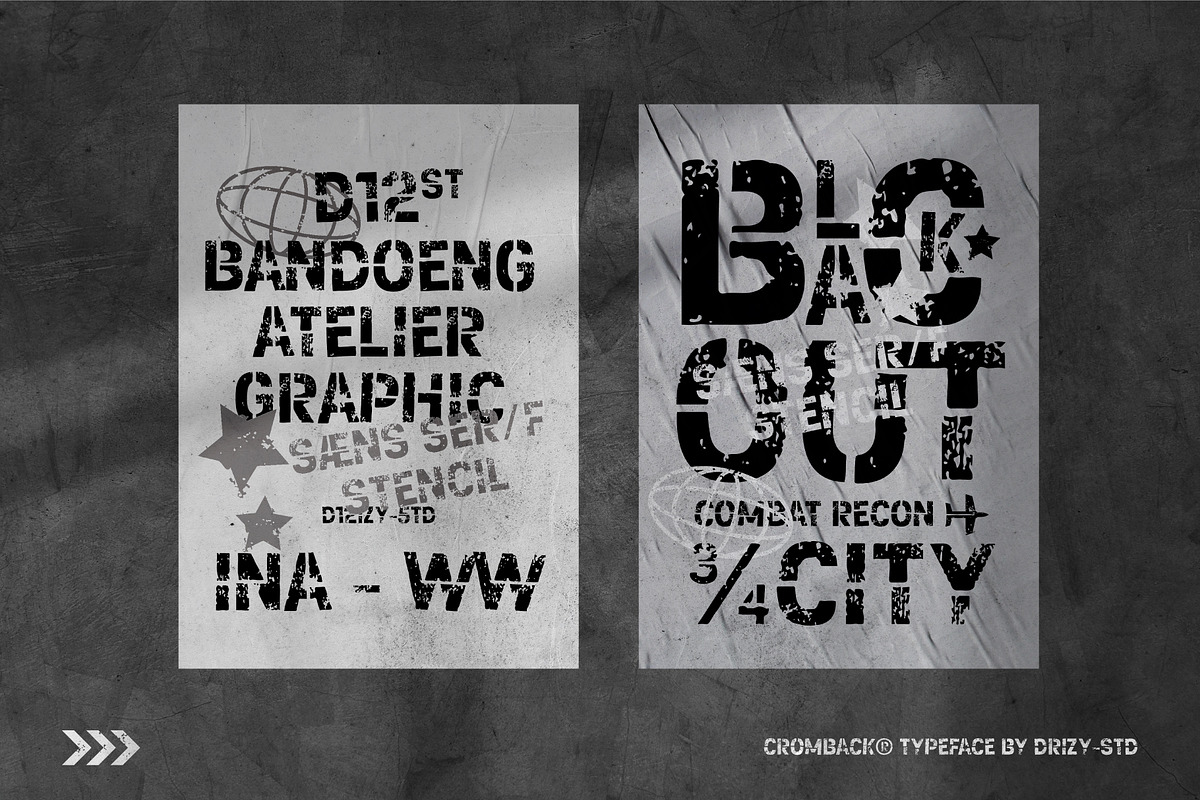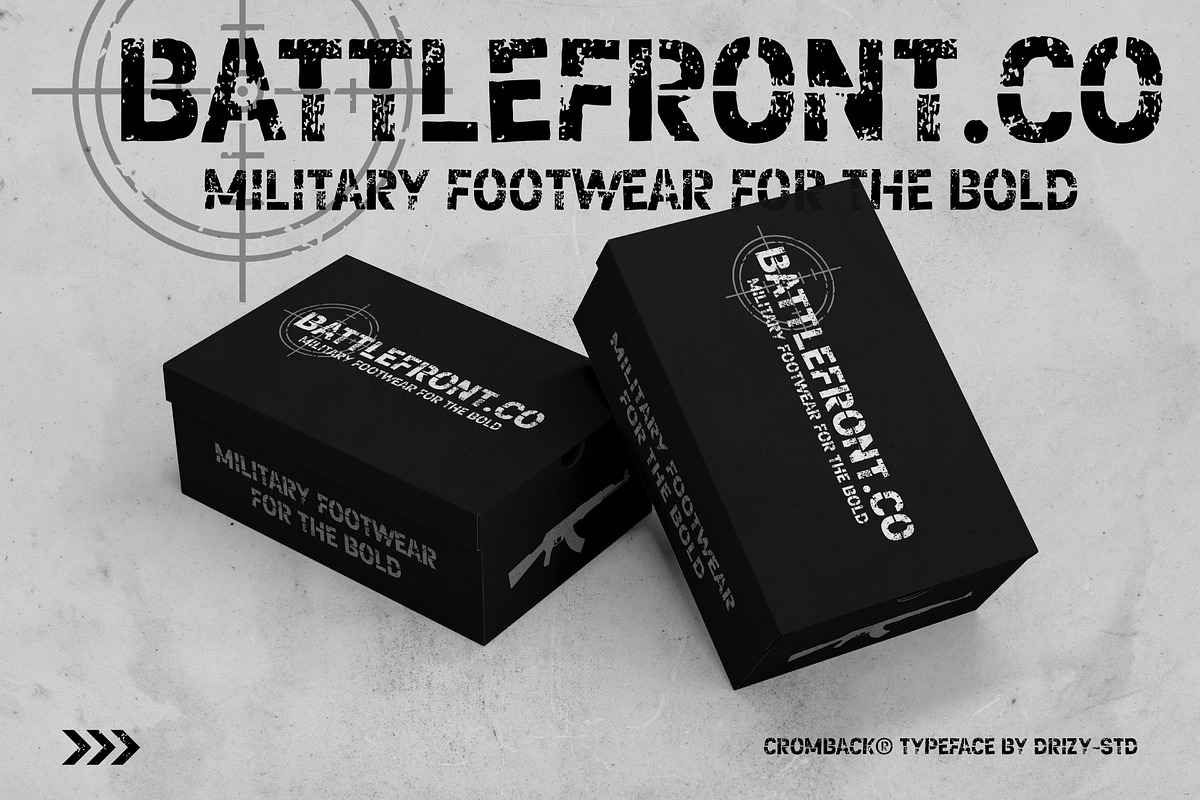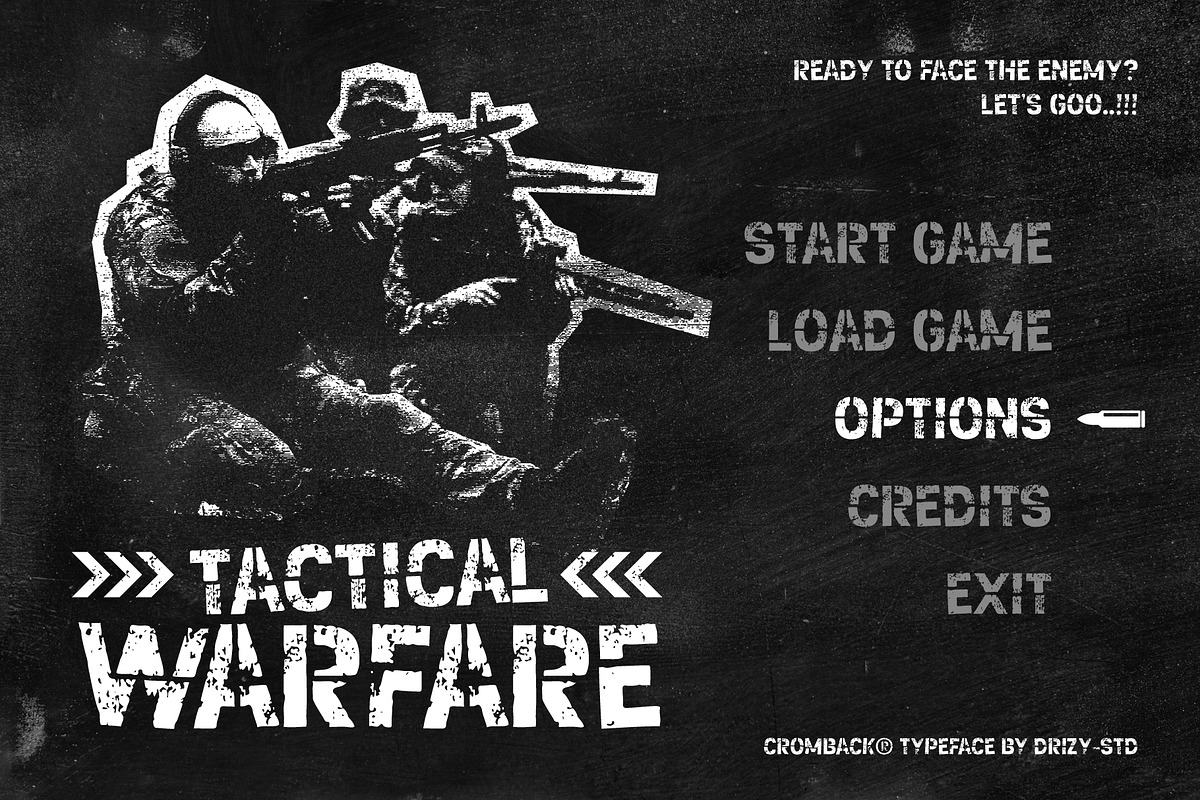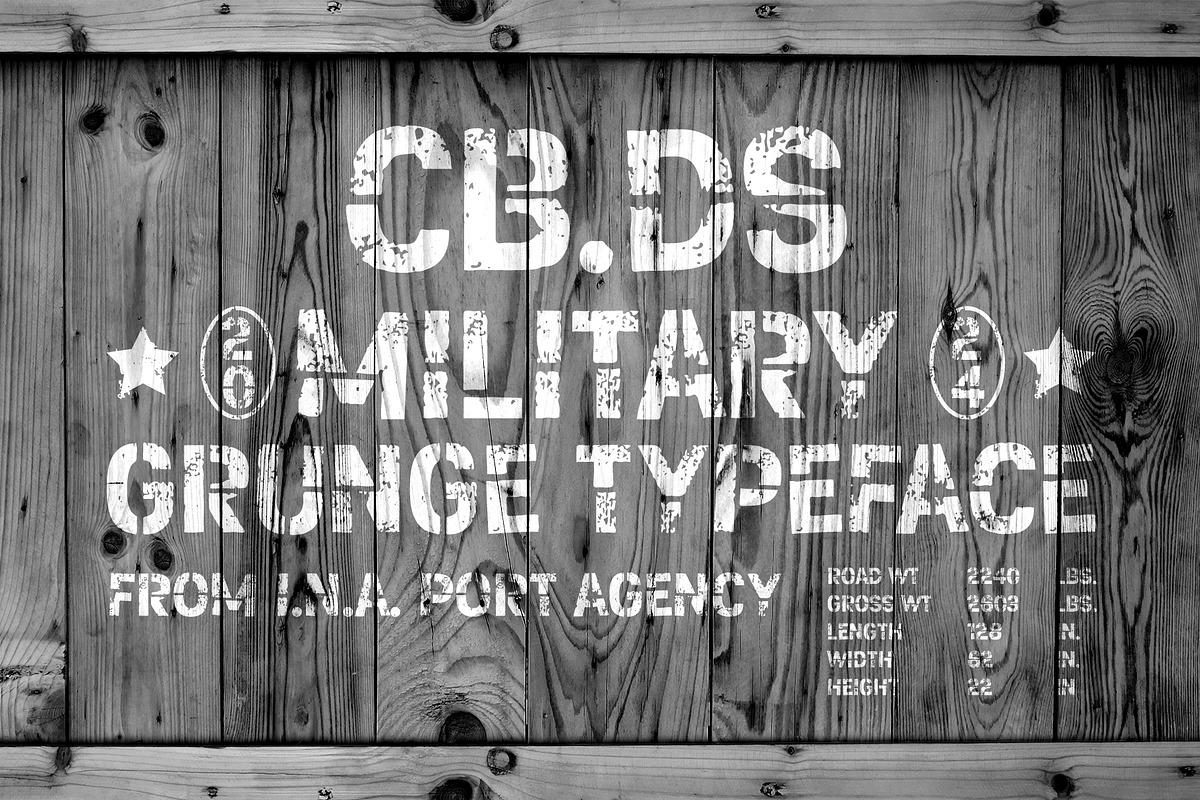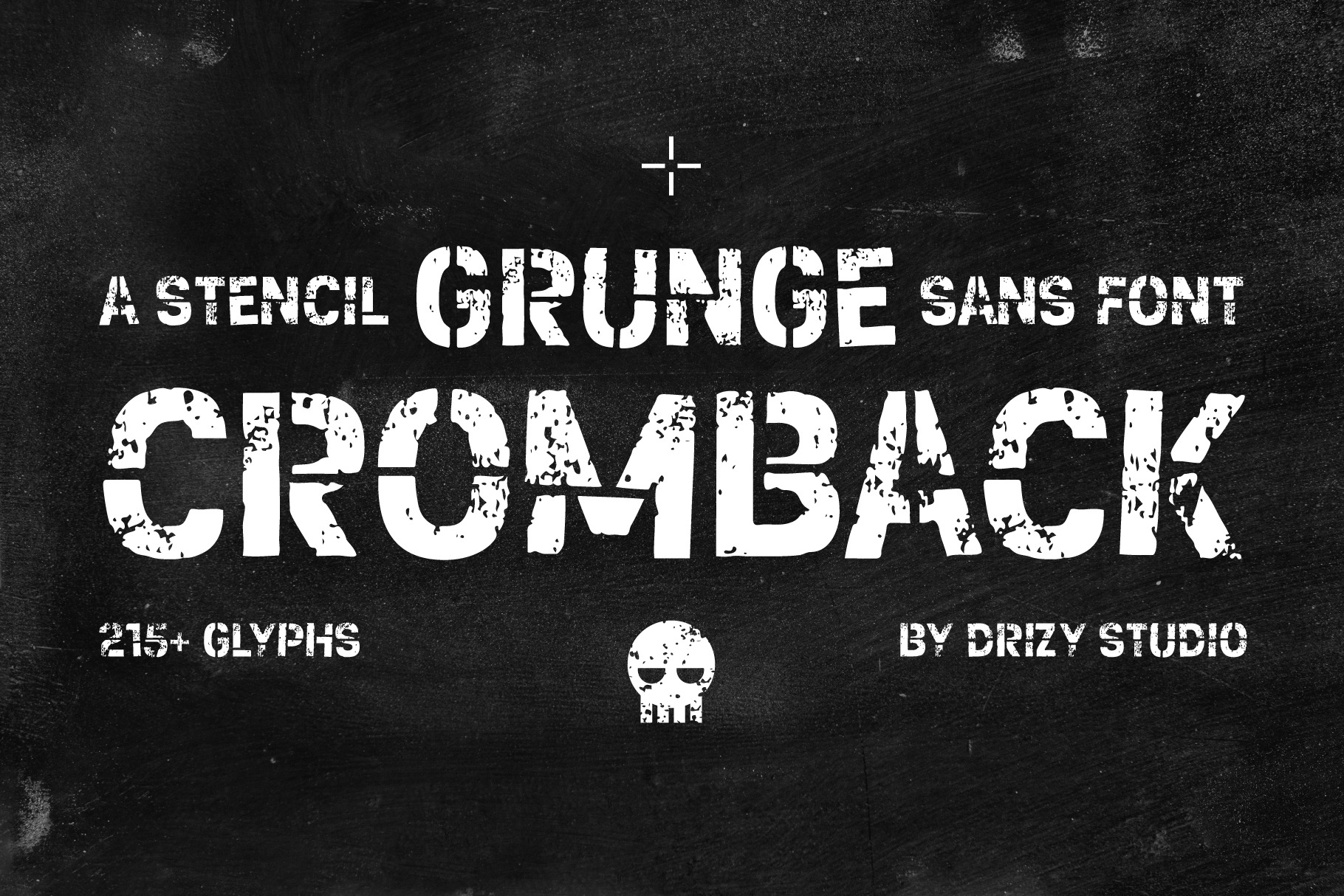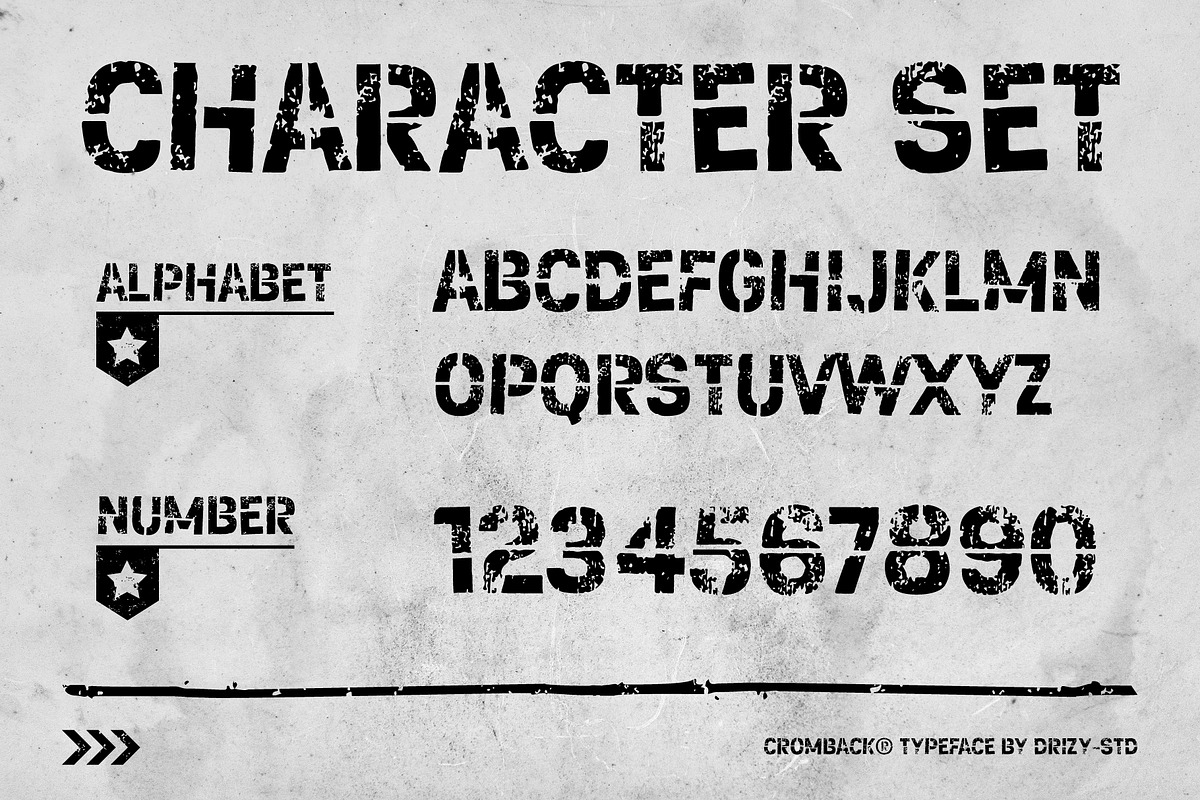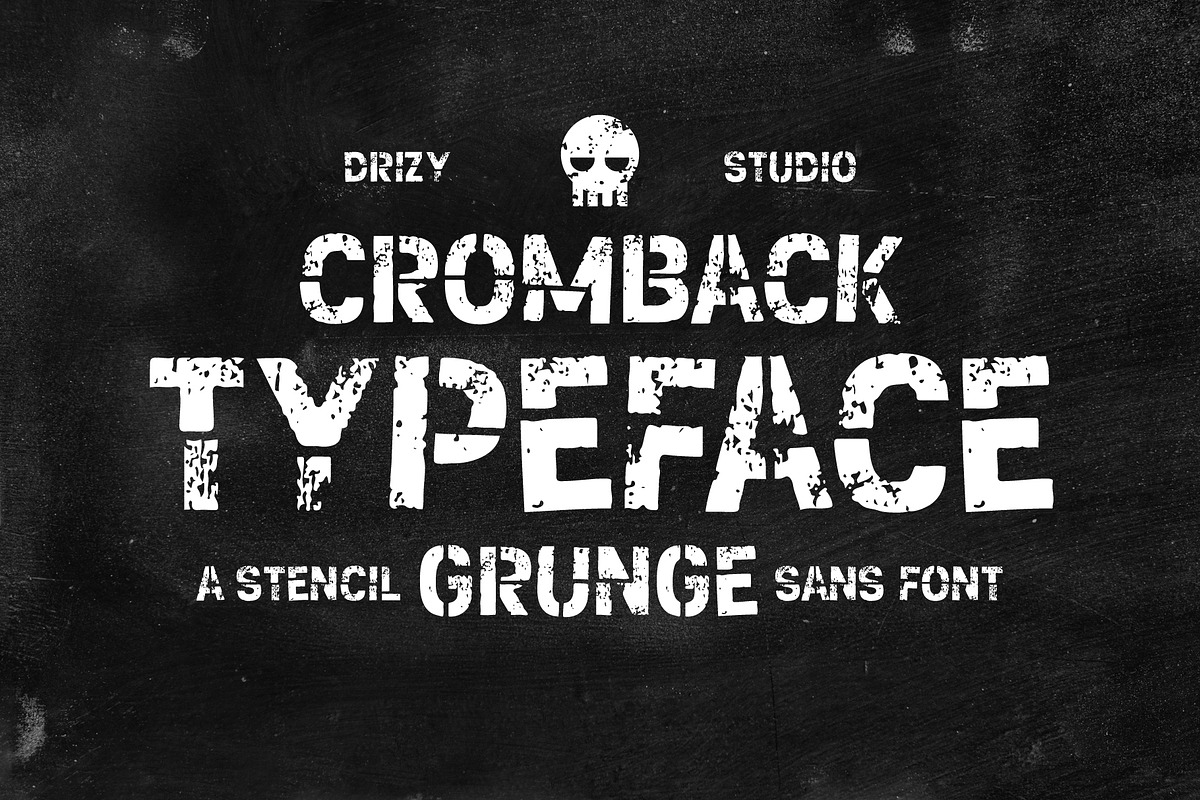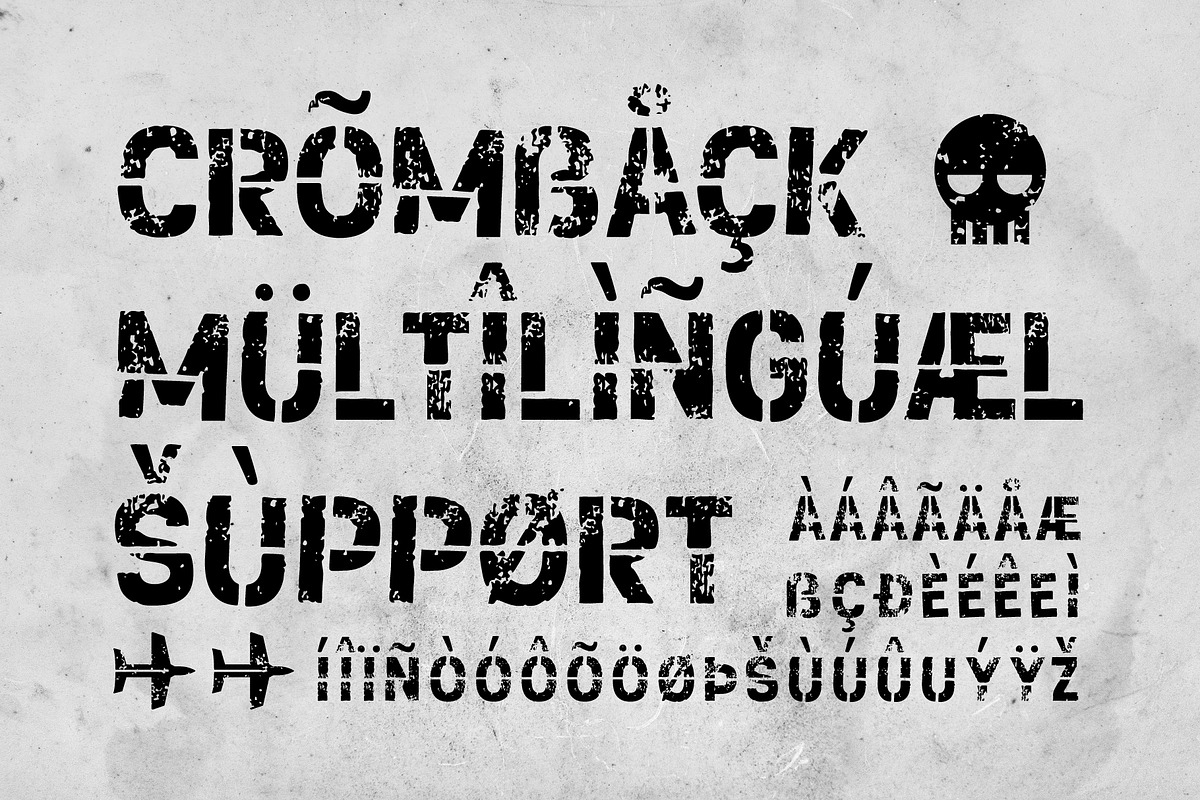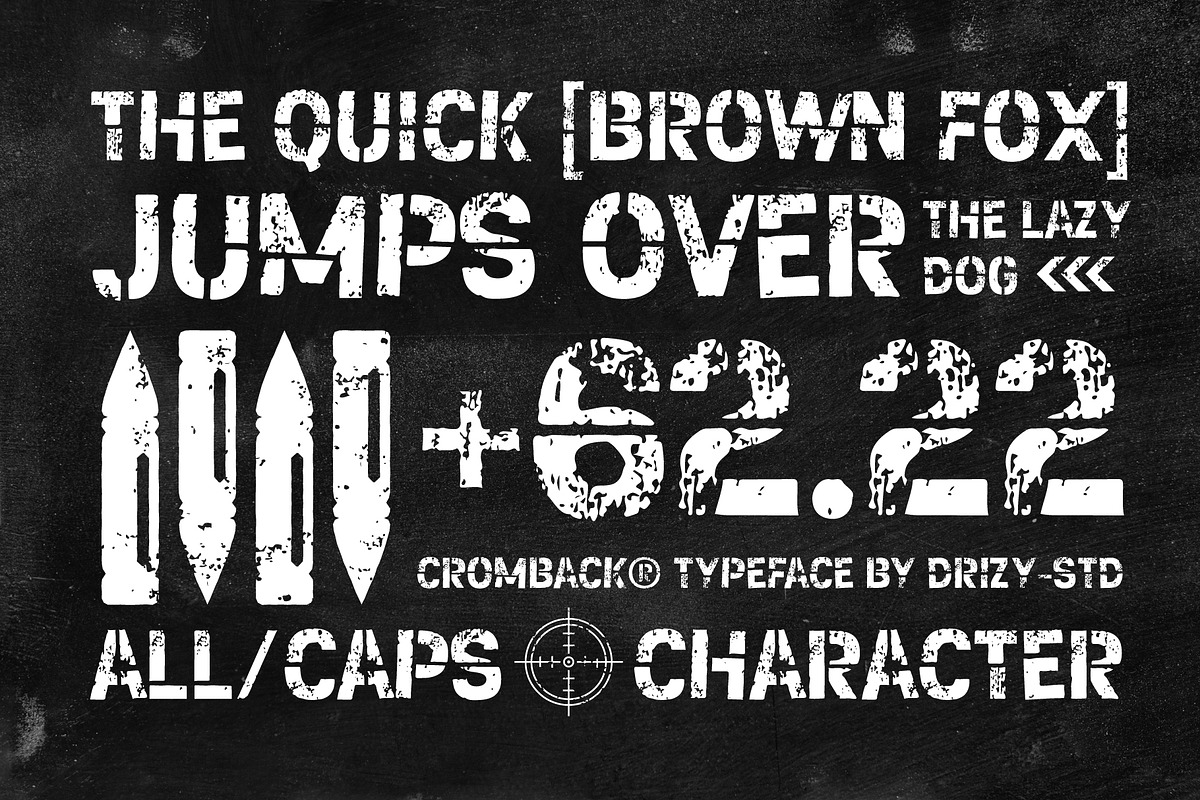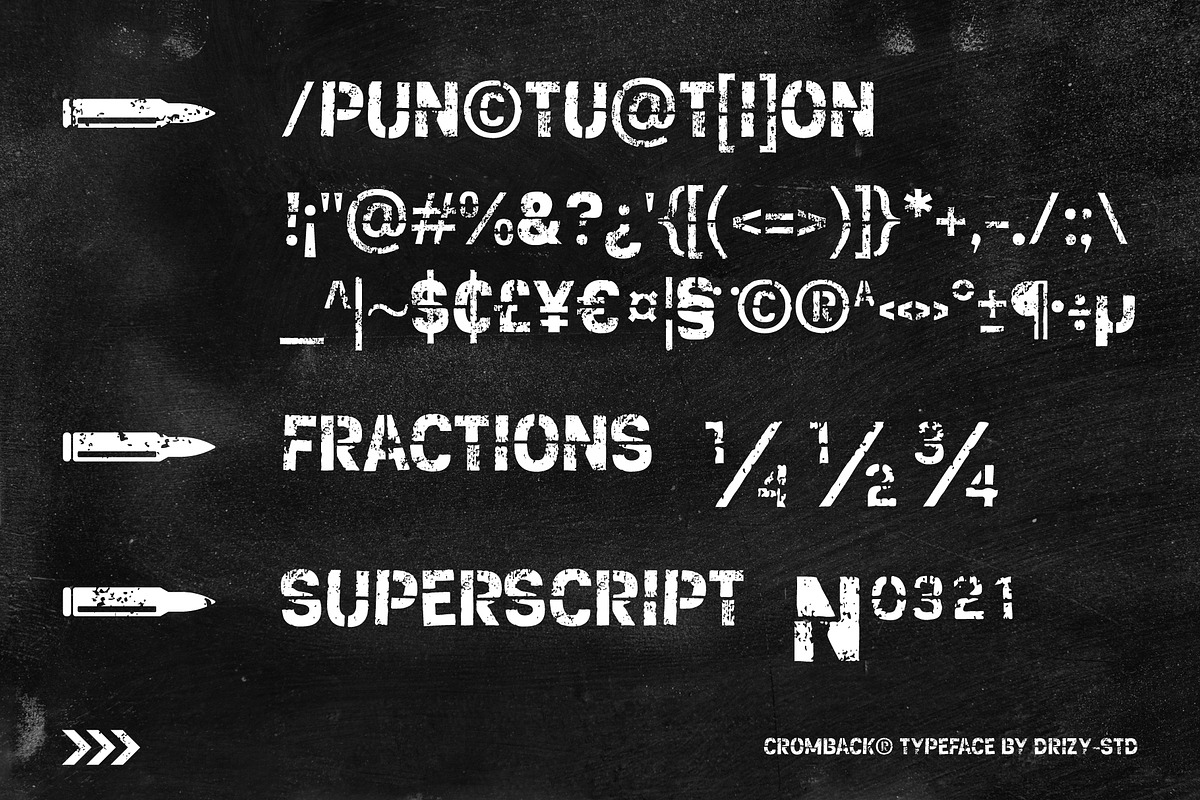
Cromback - Stencil Grunge Sans Font
Cromback Soil font is a typeface that exudes a rustic and earthy aesthetic. Its design incorporates textured elements reminiscent of soil or rough terrain, giving it a natural and organic appearance. The font's characters often feature uneven edges and irregular shapes, enhancing its handcrafted feel. Cromback Soil is well-suited for projects seeking to convey a sense of authenticity, nature, or rustic charm. It can add a unique touch to various design applications, such as branding, packaging, posters, and environmental themes.
Cromback features:
- Character Set (All Caps)
- Punctuation & Numbers
Elevate and explore the design possibilities with this Soil Font!